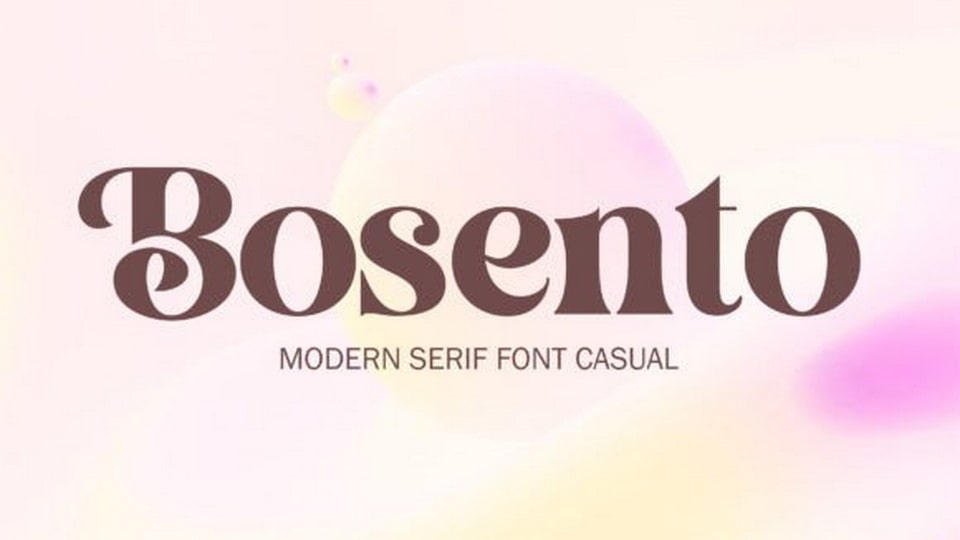
Download Bosento font, a serif typeface perfect for branding, poster designs, t-shirts, invitations, designs for children, and editorial designs. Bosento has a lot of glyphs, including ligatures, to look elegant with this bold serif.